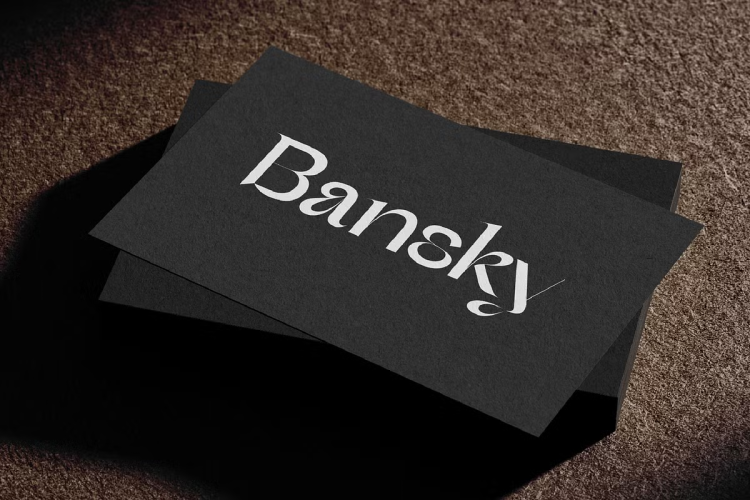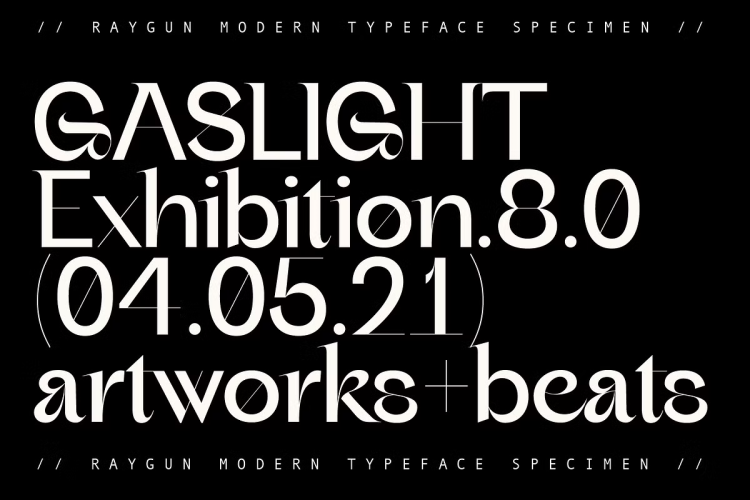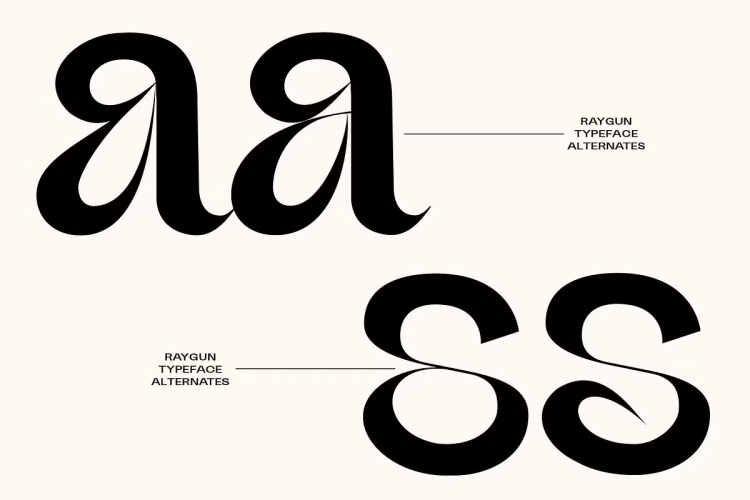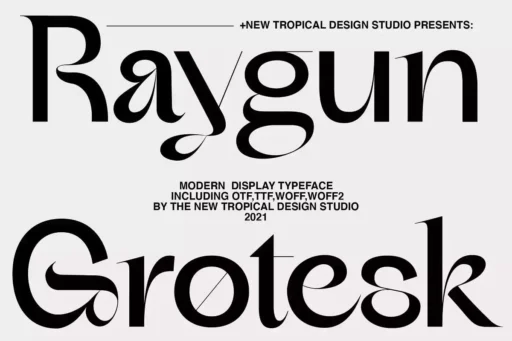
Raygun Font
Raygun is a modern display font by Tropical Type. It is interpretation of the Grotesk style typeface; this is primarily a Grotesk sans type with added contrast and selec…
Raygun is a modern display font by Tropical Type. It is interpretation of the Grotesk style typeface; this is primarily a Grotesk sans type with added contrast and selected serifs to give it a unique and modern look. The design elements include the usage of pointed elements mixed with round forms of characters that are appropriate for custom wordmarks and typography displays.
Where Raygun Font works best
Raygun Font is built for size: event posters, hero headlines and billboard-style layouts.
High contrast display type like Raygun Font reads instantly in thumbnails and motion graphics.
What is Raygun Font good for?